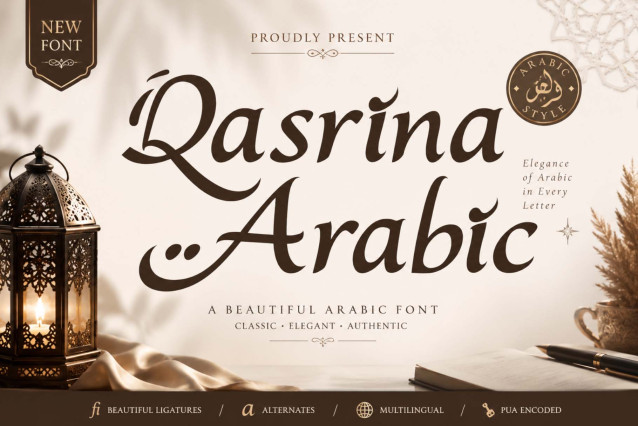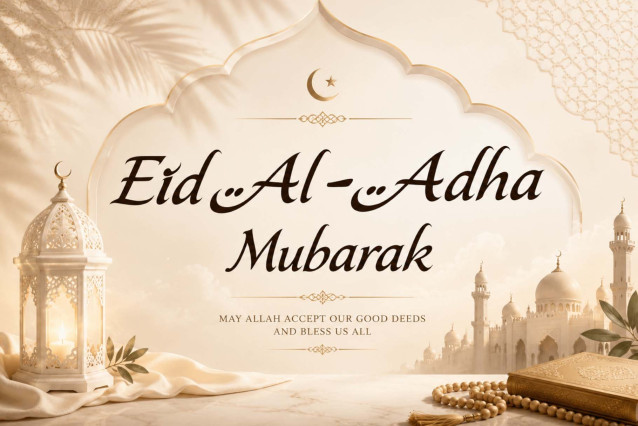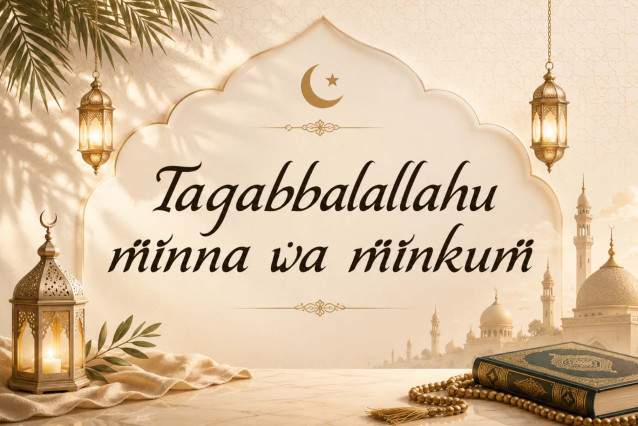
Qasrina Arabic Font
“Qasrina Arabic” is an elegant and unique Arabic display font. It comes in two styles: regular and italic. It features uppercase and lowercase letters, numerals, punctuations, and multilingual support. It’s perfect for Eid al-Adha and Eid al-Fitr greetings, invitations, banners, branding, Arabic text, logos, stickers, summer text, movie titles, music, and more.